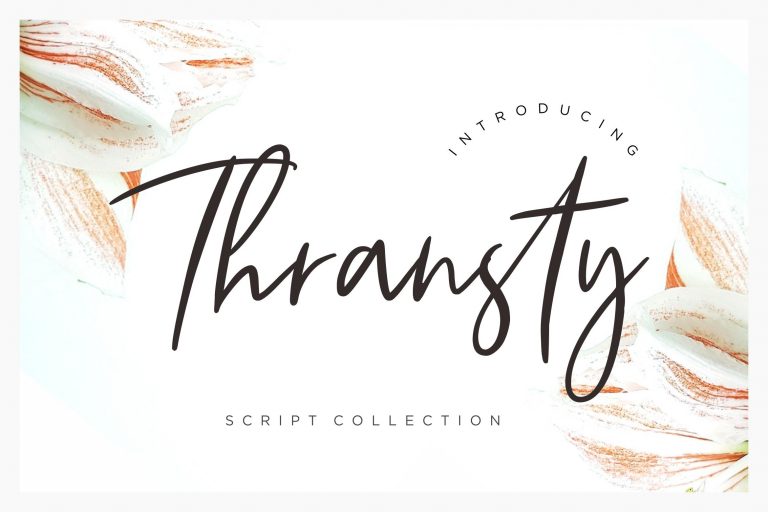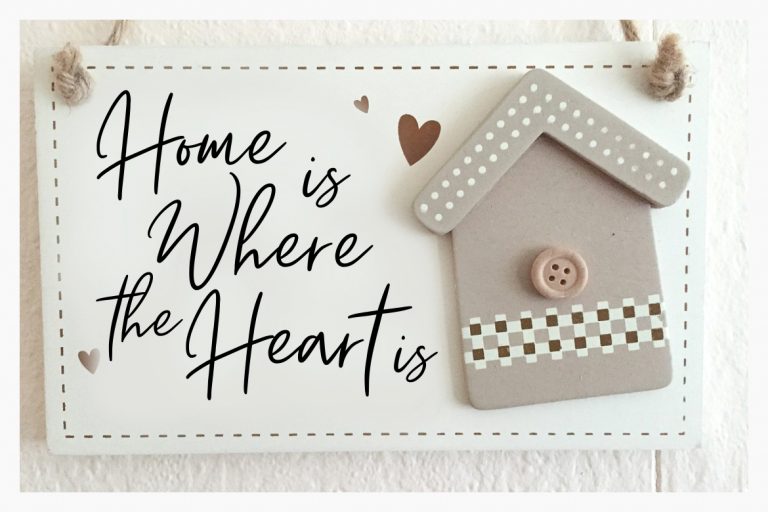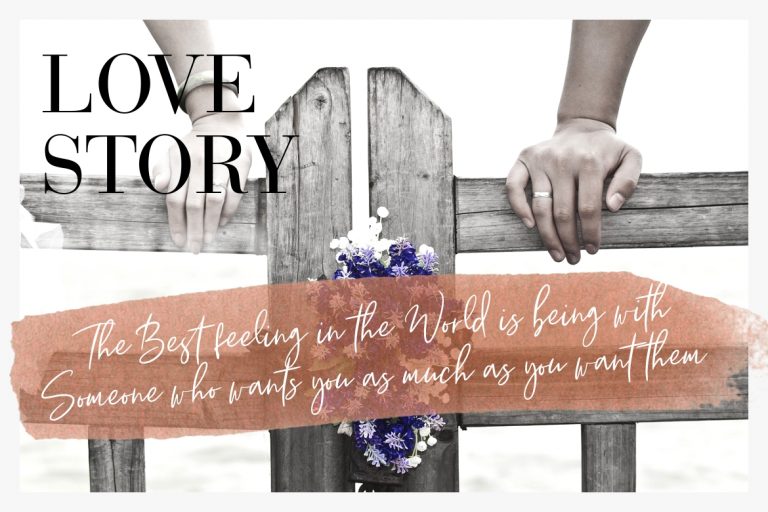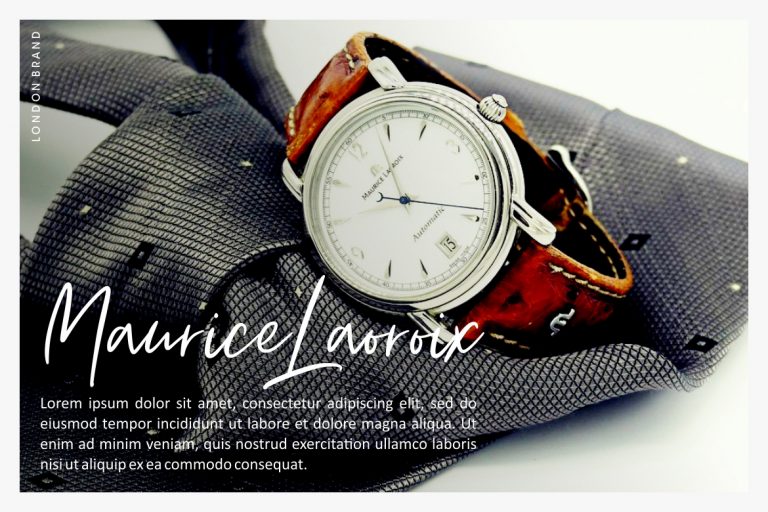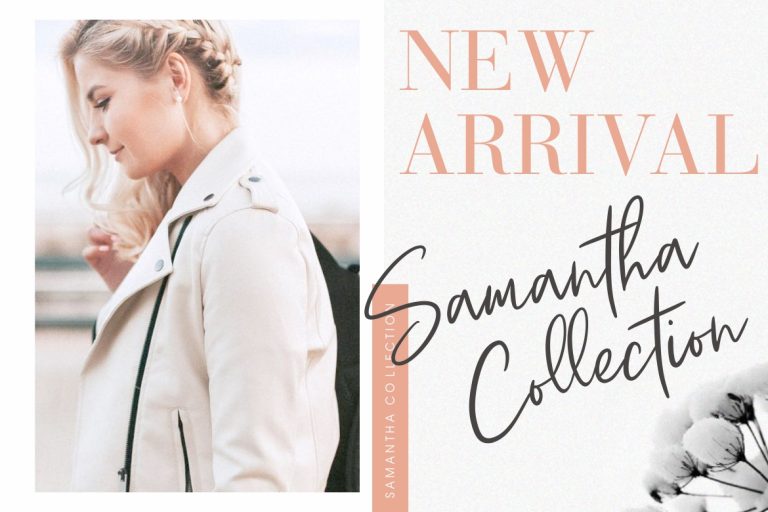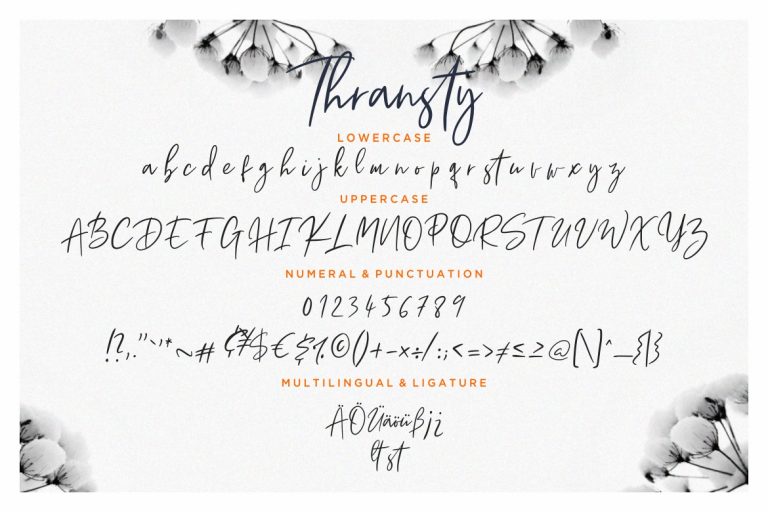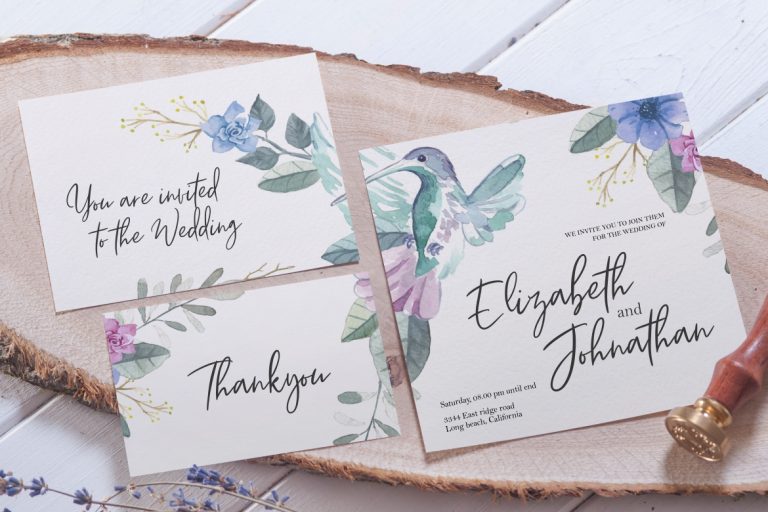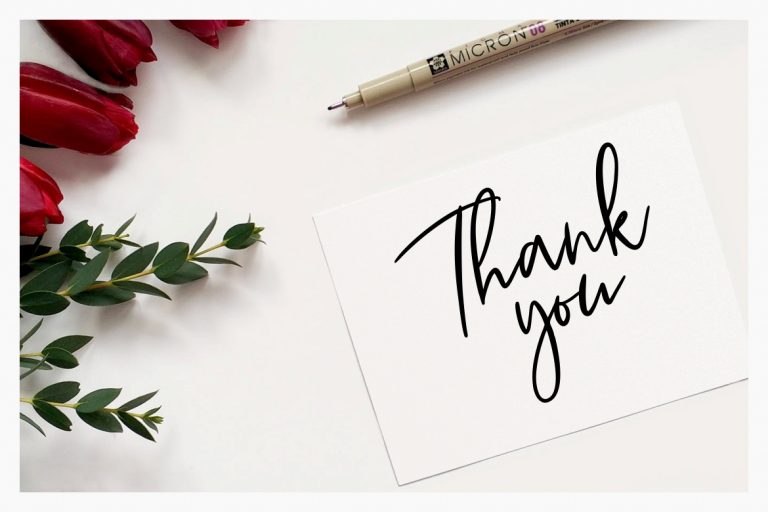
Thransty is handwritten script collection for those who need handwriting taste on your latest project.
Thransty is perfect for branding projects, logo, wedding designs, social media posts, advertisements, product packaging, product designs, label, photography, watermark, invitation, stationery and any projects that need handwriting taste.
- Fonts include multilingual support for; ä ö ü Ä Ö Ü ß ¿ ¡
Thransty Handwritten Script